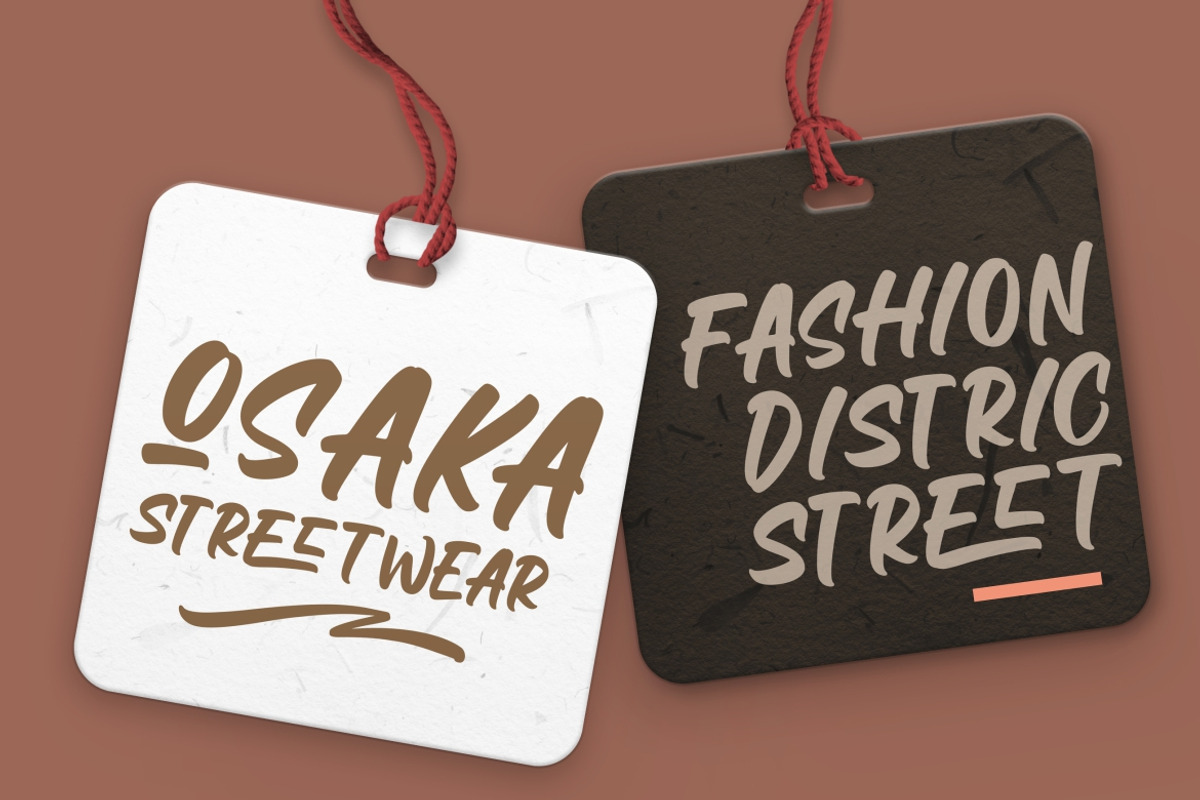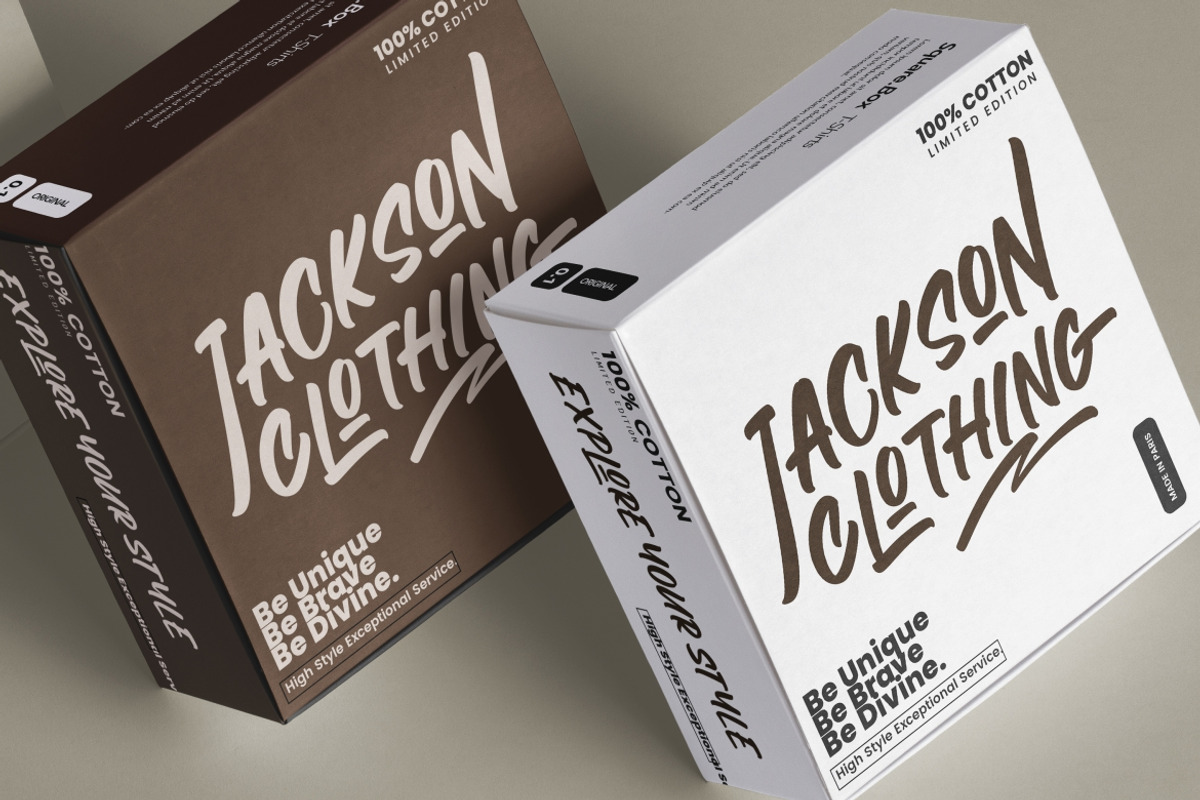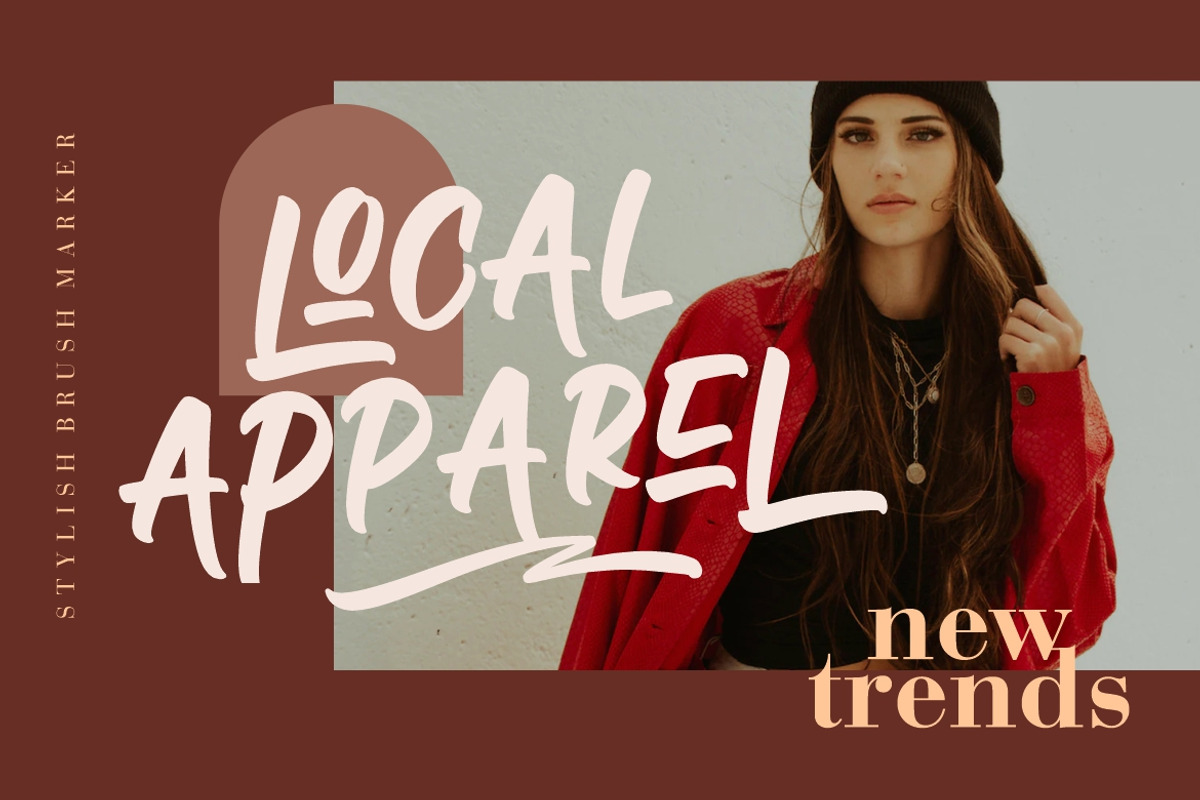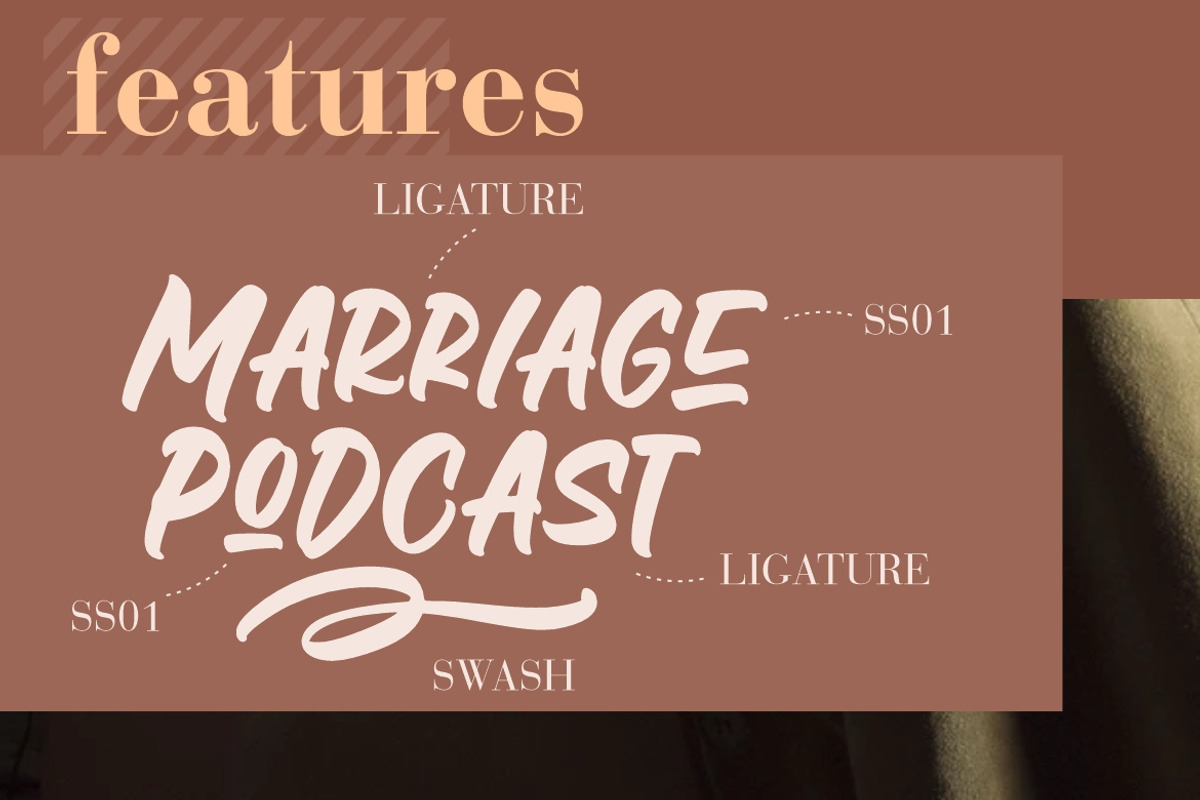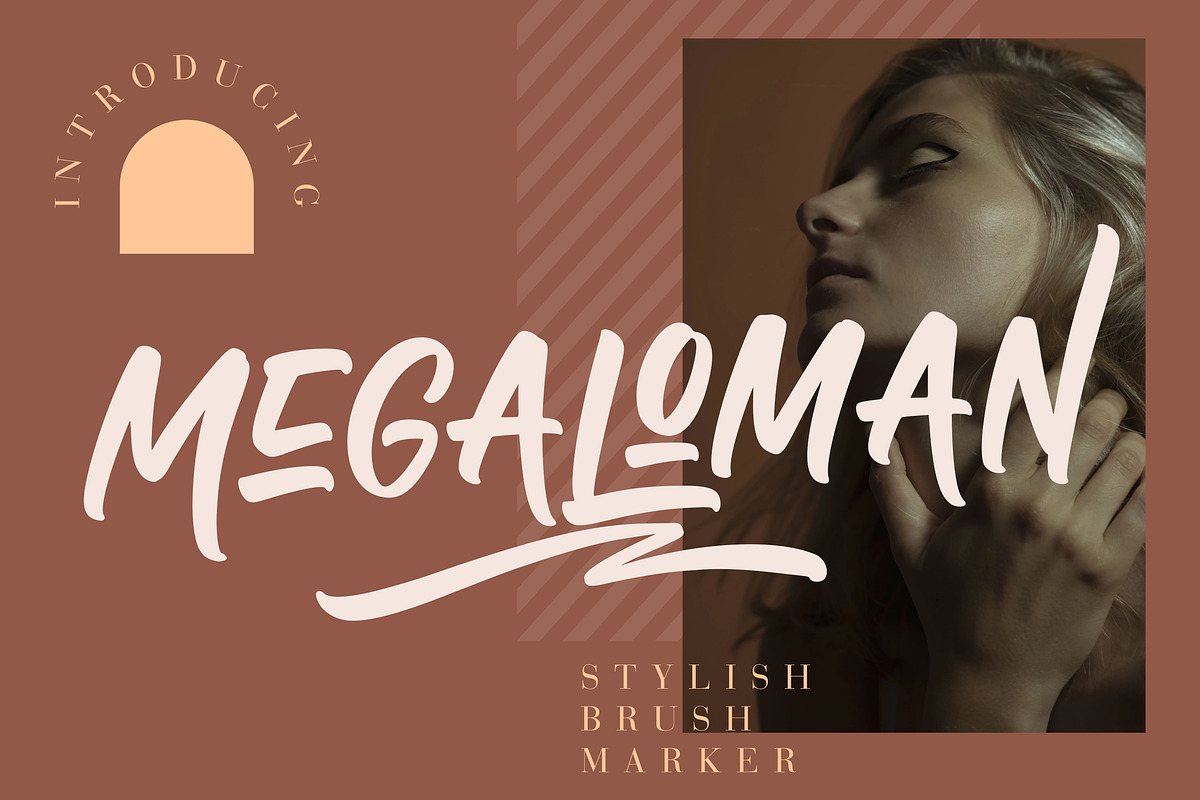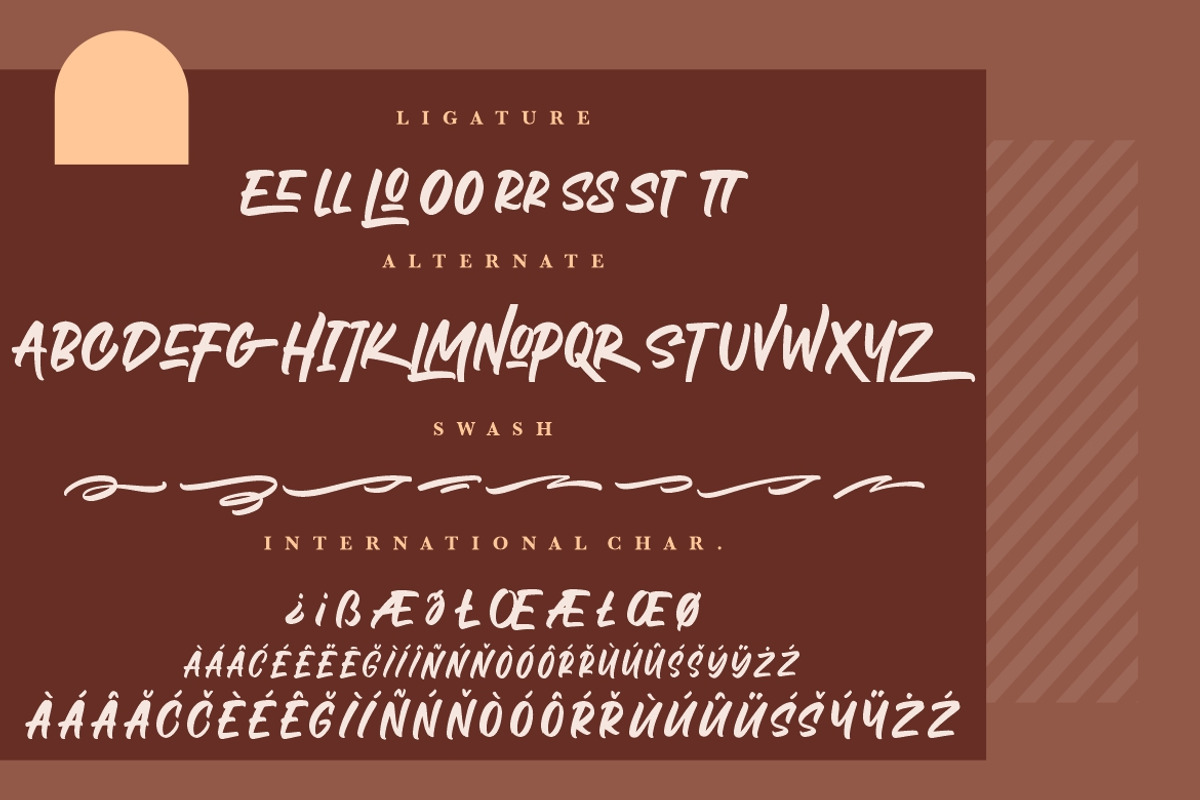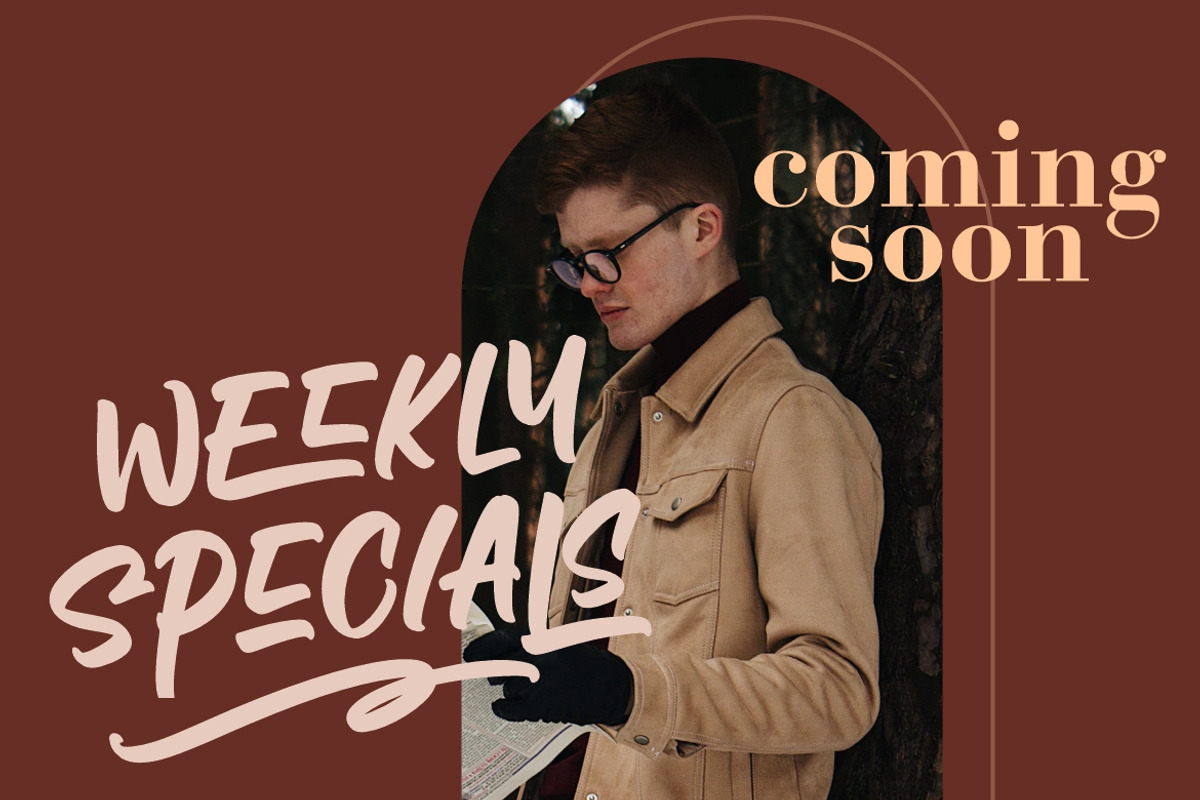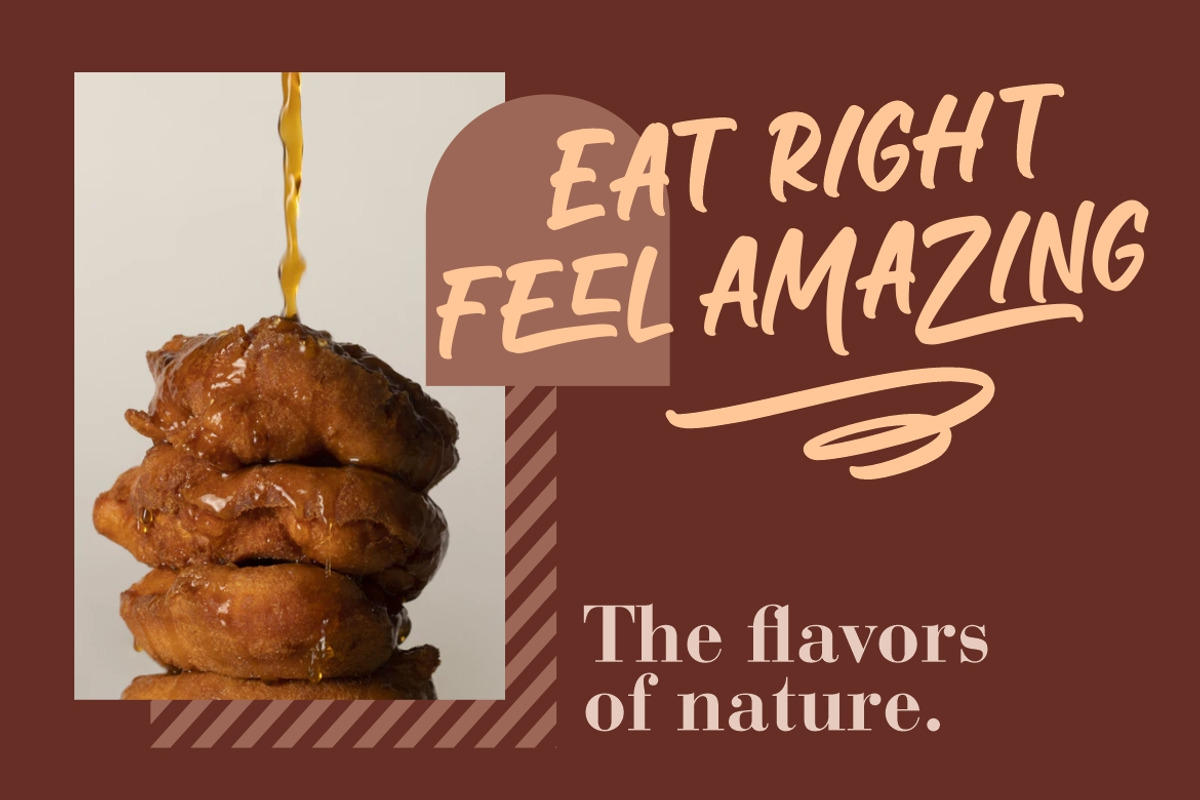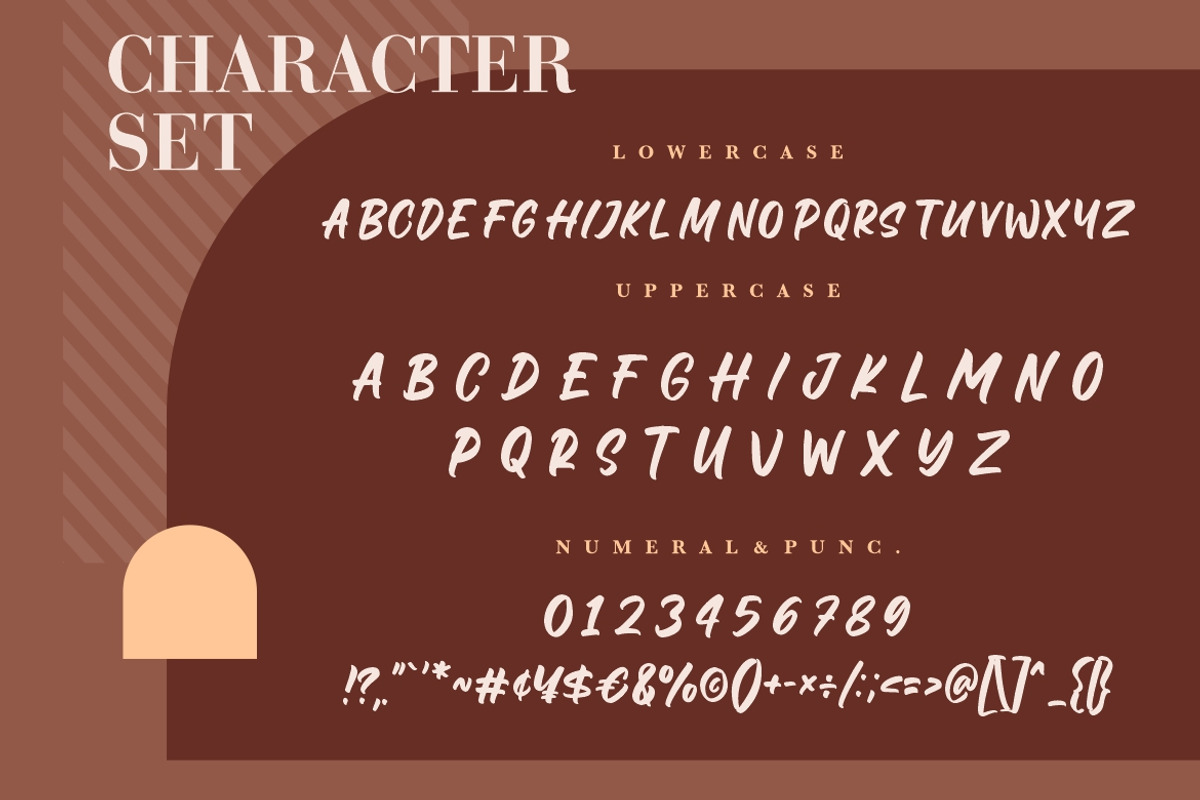
Megaloman Brush Marker
Megaloman is stylish brush marker font with modern movement that perfect for your latest project.
- Ligature, Alternate & Swashes